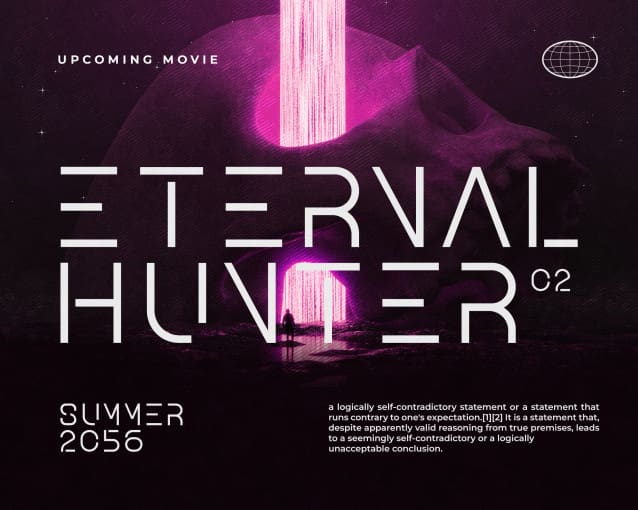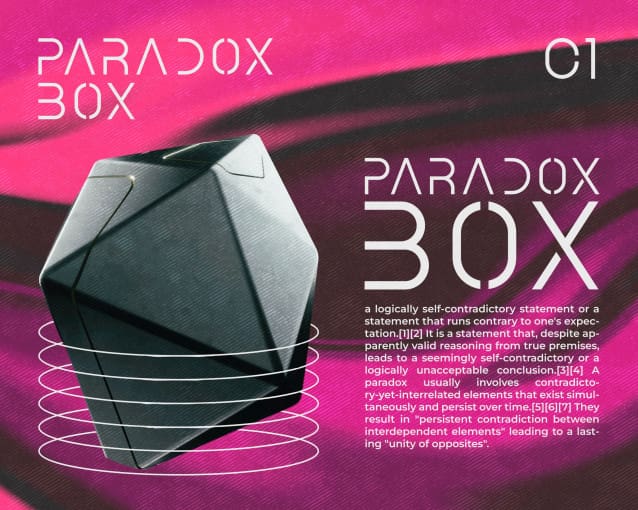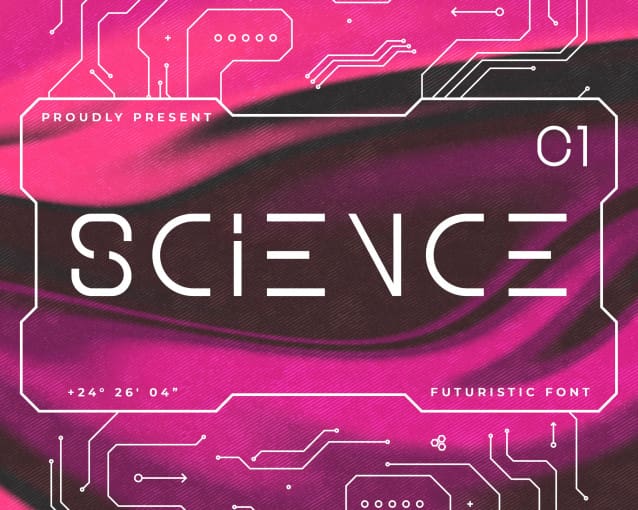
Science Font
Science Font – Modern Futuristic Font was created to present a unique and modern impression to anyone who sees it. This is in line with the characteristics of a Science Font – Modern Futuristic Font that look so cool. People who read a variety of texts using this typeface do have to try very hard to read and understand them. The font is illegible font.
Science Font – Modern Futuristic Font is the best modern font and is suitable for projects using the themes of games, future technology, space travel, and visual reality. This font can be used as a digital font, such as on the web, video, and other displays, and as a printed font on posters, banners, and book covers. This type of font can be printed in small or large sizes and still looks good up close or from a distance.
Science Font – Modern Futuristic Font is very appropriate when used at a music event. This font can use for posters, banners, stage decorations, and on-screen displays showing people. The modern and energetic impression from this font can build a pleasant atmosphere for the audience.